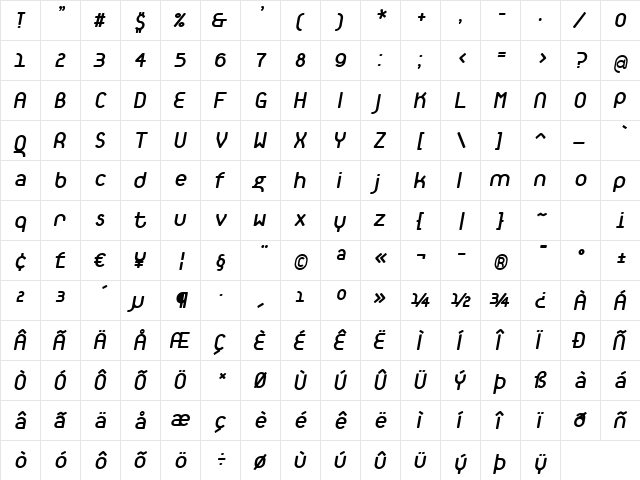
TantalusAlternativeBoldItalic Regular Font Preview
Design Context for TantalusAlternativeBoldItalic Typeface
TantalusAlternativeBoldItalic takes a measured approach to typography — its balanced proportions and neutral character make it a reliable workhorse for both digital and print work. Its italic angle brings a sense of urgency and motion to the letterforms. The heavy weight commands attention and anchors typographic hierarchies.